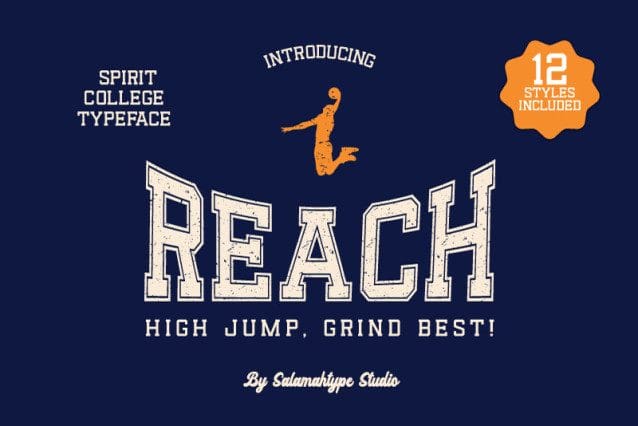
Reach Sport Font
Reach Sport Font – display typeface with 12 styles included (Fill-Fill Outline-Stamp-Outline). Perfect for branding projects, logos, labels, logotypes and more.
Features: A-Z all caps characters (12 styles) Numbers, Symbols, and Punctuation Multilingual Support If you have any questions, before or after purchase, please feel free to get in touch.